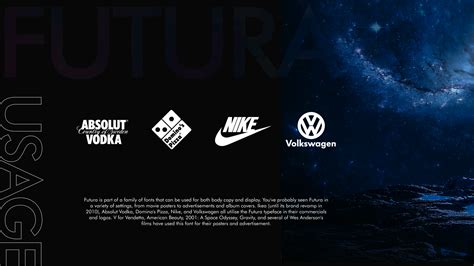
Watch Futura Font Elevate Your Brand—Why It’s Shaping Digital Identity in 2025
In a digital world where visual consistency builds trust and recognition, the choice of typography has quietly become a competitive advantage. Brands today are rethinking how their visual identity—especially font selection—impacts perception and long-term engagement. One typeface gaining attention for strategic brand elevation is Watch Futura Font Elevate Your Brand—a clean, modern sans-serif that stands out in digital environments while reinforcing professionalism and clarity.
This font isn’t just decorative; it aligns with growing consumer demand for authenticity and sophistication in every digital touchpoint. From tech startups to established enterprises, brands are shifting toward designs that feel intentional and timeless. Watch Futura Font Elevate Your Brand embodies this movement—offering crisp readability across screens, supporting scalable branding, and enhancing visual storytelling without distraction.
Understanding the Context
The rise of this font reflects broader trends toward minimalism and user experience. As screen real estate shrinks and attention spans shorten—especially on mobile devices—people increasingly seek fonts that communicate instantly and effectively. Watch Futura Font Elevate Your Brand responds by prioritizing legibility and balanced composition, making content more absorbable and memorable.
Why Watch Futura Font Elevate Your Brand—Is Gaining Momentum Across the US Market
Across the United States, visual brand identity has evolved from a supporting detail to a core component of digital strategy. With more brands investing in cohesive digital experiences, subtle design choices now influence trust, conversion, and customer loyalty. Watch Futura Font Elevate Your Brand stands out because it bridges aesthetic appeal with practical functionality—designed for clarity at small sizes, optimal legibility across devices, and seamless integration into websites, social content, and marketing collateral.
Cultural shifts toward authenticity and premium presentation further fuel adoption. In an era where digital environments mirror in-person professionalism, adopting fonts like Watch Futura supports a brand’s perceived reliability. It’s a subtle but meaningful way to communicate consistency and attention to detail—attributes increasingly valued by users in competitive markets.
How Watch Futura Font Elevate Your Brand—Actually Works in Branding and Communication
Watch Futura Font Elevate Your Brand isn’t a buzzword—it’s a purposeful design choice grounded in typographic best practices. Its clean lines and geometric precision reduce visual noise, allowing key messages to shine. The font’s structured design enhances grid alignment, making layout creation efficient and responsive. For digital platforms, this translates to faster load times and smoother user experiences.
Beyond aesthetics, the font supports cross-channel consistency. Whether used in email headers, landing pages, or social media graphics, it maintains clarity whether viewed on a smartphone, tablet, or desktop. This single flood is why brands consider it a reliable asset in building durable digital identities—one that adapts without sacrificing style.
Common Questions About Watch Futura Font Elevate Your Brand—Answered
Q: Is Watch Futura Font Elevate Your Brand suitable for professional use?
Yes. Its balanced proportions and neutral tone make it ideal for corporate communications, technical documentation, and premium branding—offering professionalism without months of design complexity.
Q: Can this font improve website usability?
Absolutely. Its high readability at small sizes ensures content remains accessible across devices, enhancing user experience and decreasing bounce rates on mobile-skewed audiences—critical for US-based digital traffic.
Q: Does this font work well with color and contrast?
Watch Futura pairs effectively with inclusive color palettes, supporting contrast ratios required by accessibility standards. This ensures compliance and broader reach.
Q: Is it free to use, or does licensing apply?
Typically, open-source versions exist for personal or small-scale use. Enterprise use often requires formal licensing to protect brand integrity and ensure compliance.
Common Misconceptions About Watch Futura Font Elevate Your Brand
A frequent myth is that modern sans-serif fonts like Watch Futura are cold or impersonal. In reality, the font balances sharp structure with subtle warmth through spacing and stroke variation—designed to feel approachable yet credible.
Another misconception is that font choice alone transforms a brand. While impactful, true effect comes from combining typography with cohesive design systems and authentic messaging. Sensible use as part of a broader strategy amplifies results.